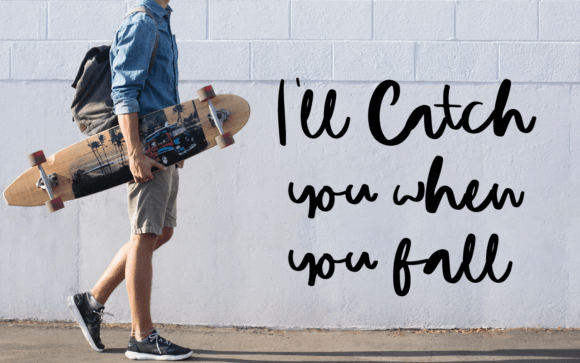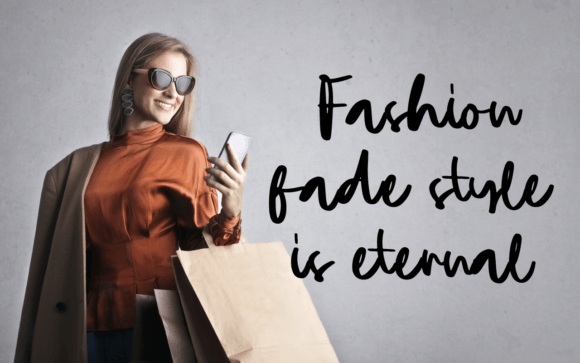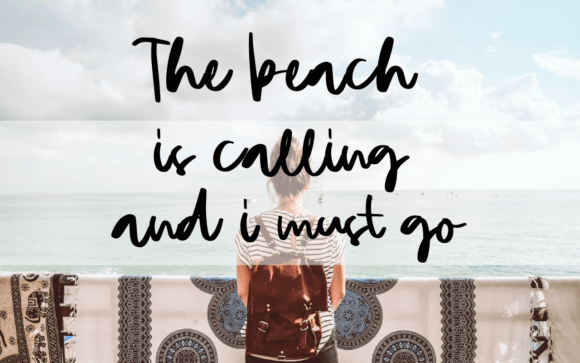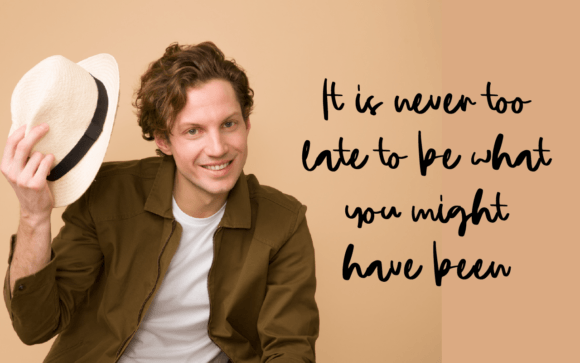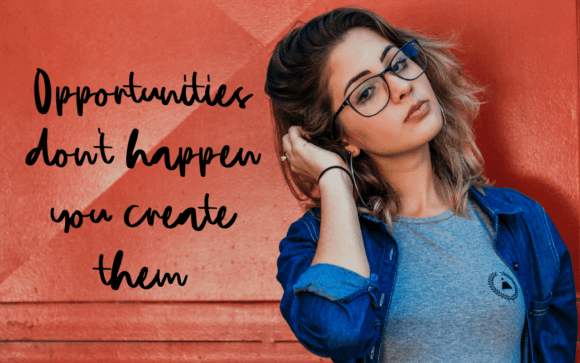
Discover the Elegance of Charlie Font: A Timeless Handwritten Script
Are you on the hunt for a font that exudes elegance and sophistication? Look no further than Charlie Font, a beautiful, flowing handwritten script that is sure to capture your heart. With its distinct and timeless style, Charlie Font is the perfect addition to any design project, from crafting and scrapbooking to branding and advertising.
What is Charlie Font?
Charlie Font is a carefully crafted handwritten font that boasts an elegant touch, making it ideal for a wide range of creative projects. Its unique, flowing script is characterized by beautiful swashes and subtle variations in line width, giving it a distinctly human feel that is both classic and contemporary.
The Characteristics of Charlie Font
So, what sets Charlie Font apart from other fonts? Here are just a few of its key characteristics:
- Elegant and Refined: Charlie Font features a sophisticated, elegant style that is perfect for designs that require a touch of luxury and refinement.
- Flowing Script: The font’s flowing script is designed to look like it was written by hand, with beautiful swashes and flourishes that add a touch of personality to any design.
- Distinct and Timeless: Charlie Font’s unique style is both distinct and timeless, making it a great choice for designers who want to create designs that will stand the test of time.
- Versatile: Whether you’re working on a crafting project, a scrapbooking layout, or a branding campaign, Charlie Font is versatile enough to adapt to any design style or theme.
Why Choose Charlie Font?
With so many fonts to choose from, why should you choose Charlie Font for your next project? Here are just a few reasons:
- Adds a Touch of Elegance: Charlie Font’s elegant style adds a touch of sophistication to any design, making it perfect for projects that require a level of refinement.
- Easy to Read: Despite its elegant style, Charlie Font is easy to read, even at small sizes, making it perfect for body text and headlines.
- Unique and Memorable: Charlie Font’s unique style makes it a great choice for designers who want to create designs that stand out from the crowd and leave a lasting impression.
Using Charlie Font in Your Designs
So, how can you use Charlie Font in your designs? Here are a few ideas to get you started:
- Crafting and Scrapbooking: Charlie Font is perfect for crafting and scrapbooking projects, where its elegant style can add a touch of sophistication to journaling, titles, and other design elements.
- Branding and Advertising: Charlie Font’s unique style makes it a great choice for branding and advertising campaigns, where it can help to create a memorable and lasting impression.
- Wedding and Event Design: Charlie Font’s elegant style makes it perfect for wedding and event design, where it can be used to create beautiful stationery, signage, and other design elements.
Tips for Getting the Most Out of Charlie Font
Here are a few tips for getting the most out of Charlie Font:
- Experiment with Different Sizes: Charlie Font looks great at a range of sizes, from small body text to large headlines. Experiment with different sizes to find the one that works best for your design.
- Play with Color: Charlie Font’s elegant style looks great in a range of colors, from classic black and white to bold and bright hues. Experiment with different colors to find the one that works best for your design.
- Combine with Other Fonts: Charlie Font pairs well with a range of other fonts, from classic serif fonts to modern sans serif fonts. Experiment with different font combinations to find the one that works best for your design.
| Font Name | Charlie Font |
| Author | Zero Type |
In conclusion, Charlie Font is a beautiful, elegant handwritten script that is perfect for designers and crafters who want to add a touch of sophistication to their designs. With its distinct and timeless style, Charlie Font is sure to capture your heart and inspire your creativity. So why wait? Fall in love with Charlie Font today and start creating spectacular designs that will leave a lasting impression!